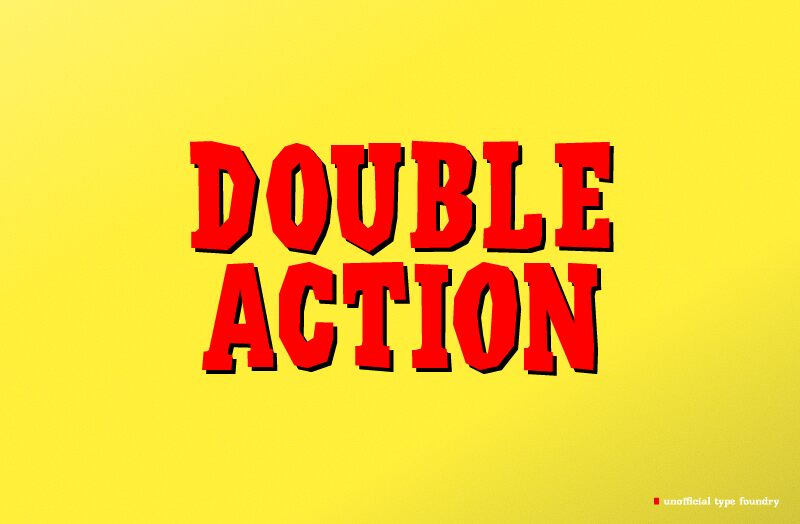
Double Action font designed by unofficial type foundry joins the marketplace in a true western fashion! The single-font family sports rugged semi-cursive letters blended with exciting Western cowboy flair and other retro features. Double Action resembles the wild nature of wild Western scripts but keeps its representation bold and impactful. Use it in all caps to achieve the best effect.
The dynamic, energetic, theatrical, and expressive nature of Double Action makes it a highly noticeable candidate in headlines and posters. Target teenagers and younger audiences by using this typeface on gaming posters, stickers, clothing designs, and book covers. Or focus on people from more mature generations by featuring it in event invitations like concerts organized in schools and theaters.
Double Action is a Western-themed display typeface featuring only uppercase letters, but each character has an alternate version available through uppercase and lowercase inputs. This design adds an element of unpredictability and grit to every word.
What sets Double Action apart is its built-in auto-ligature feature: repeating letters are automatically swapped with their alternates. This functionality breaks the monotony and imparts a hand-crafted, distressed feel. It is perfect for posters, games, or any project that requires a rugged, vintage flair with a dynamic twist.